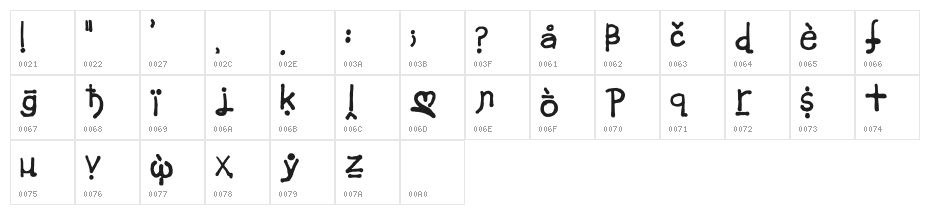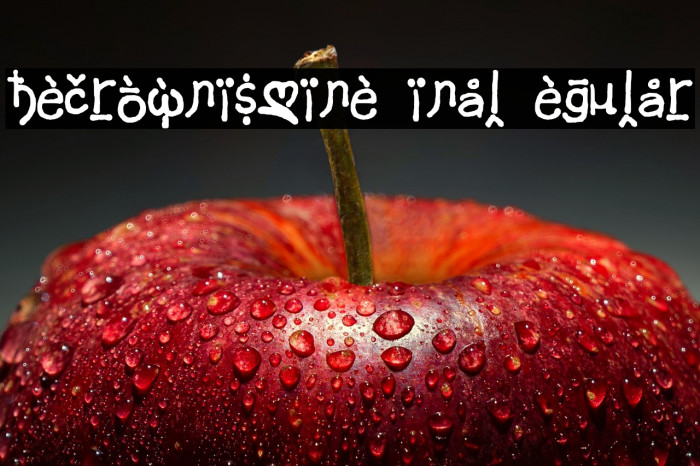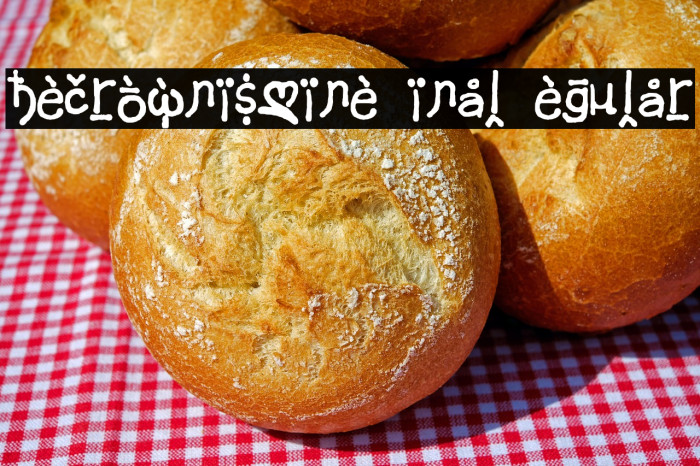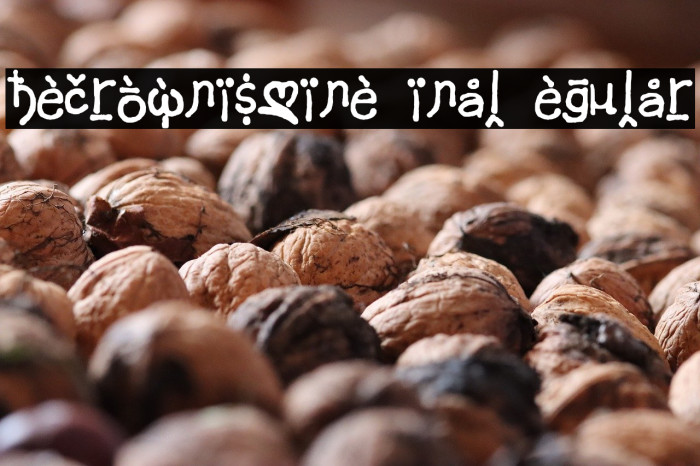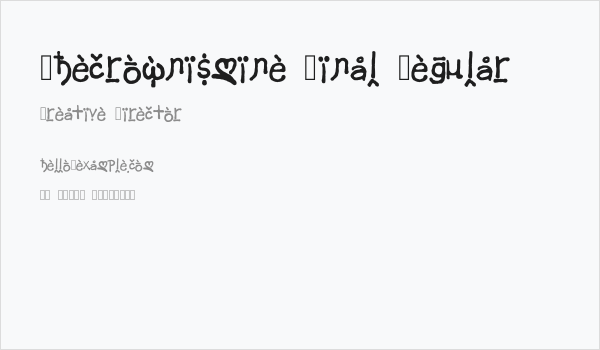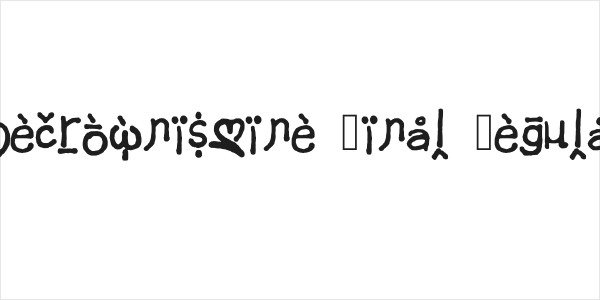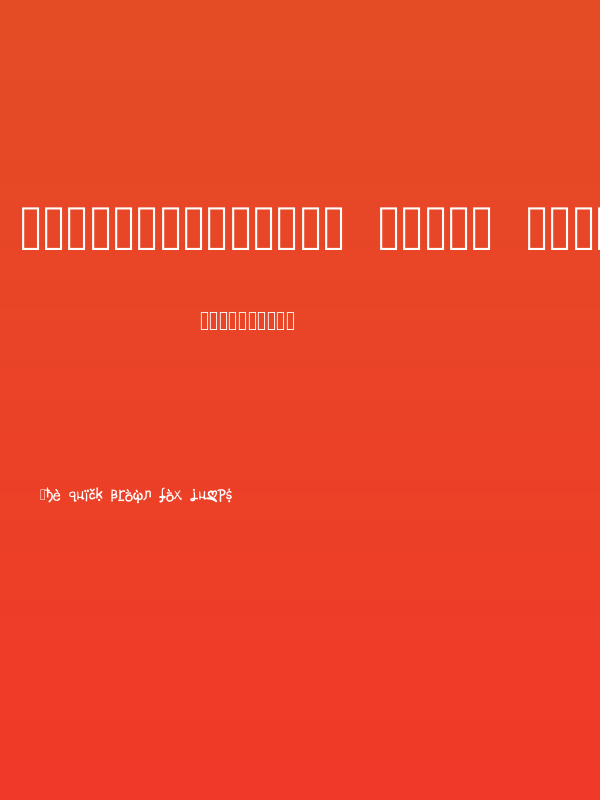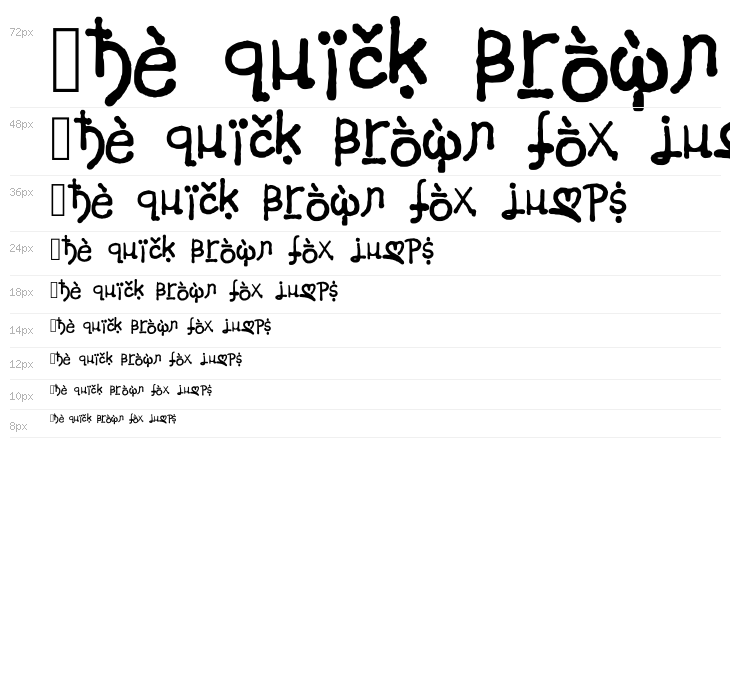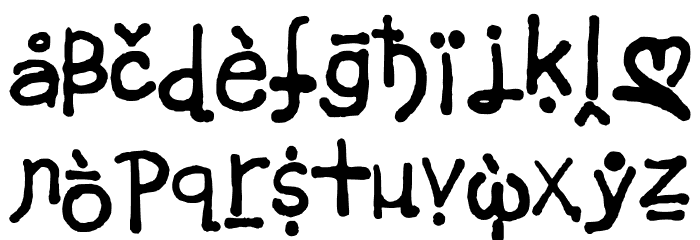
Thecrownismine Final Regular Font
Thecrownismine Final Regular Description
This font features a unique and artistic style, characterized by its irregular and playful letterforms. The characters have a hand-drawn appearance, with varying stroke widths that add a dynamic and whimsical feel. The uppercase letters are bold and prominent, while the lowercase letters maintain a consistent flow, enhancing the font's organic nature. The special characters are creatively designed, adding to the font's overall charm. This font is perfect for projects that require a touch of creativity and individuality.